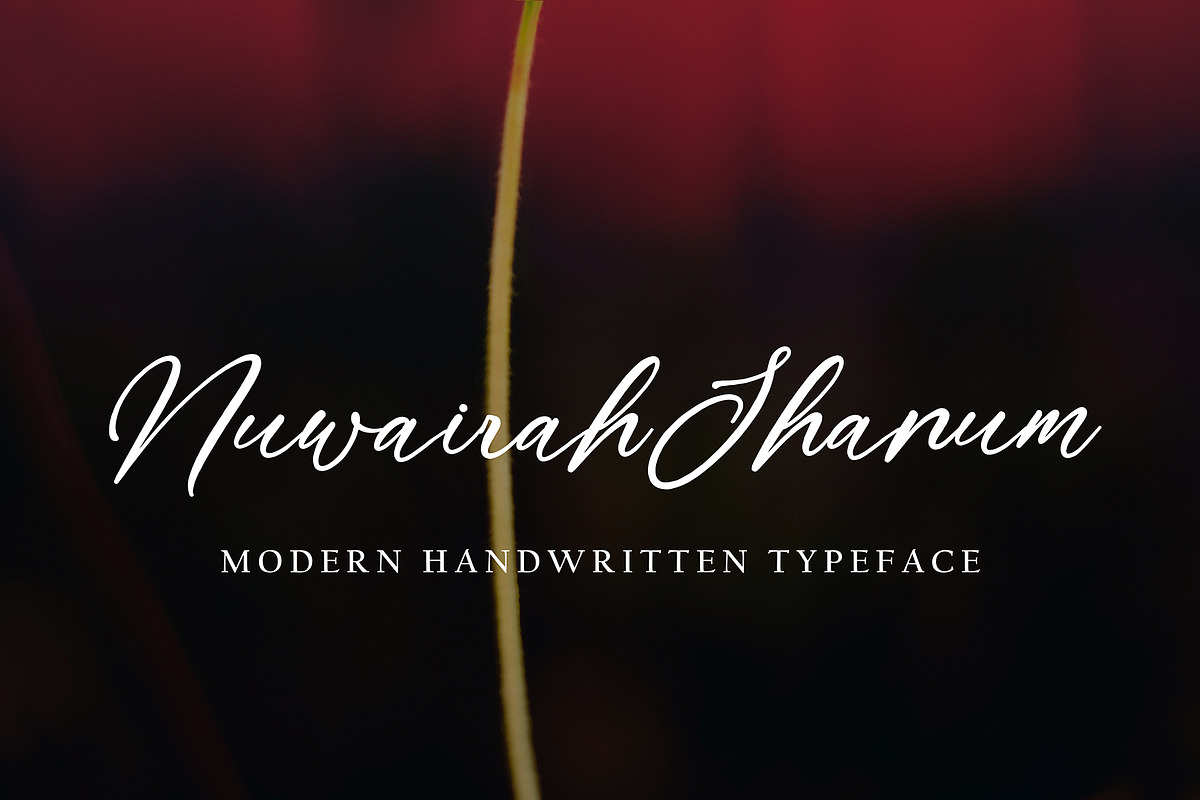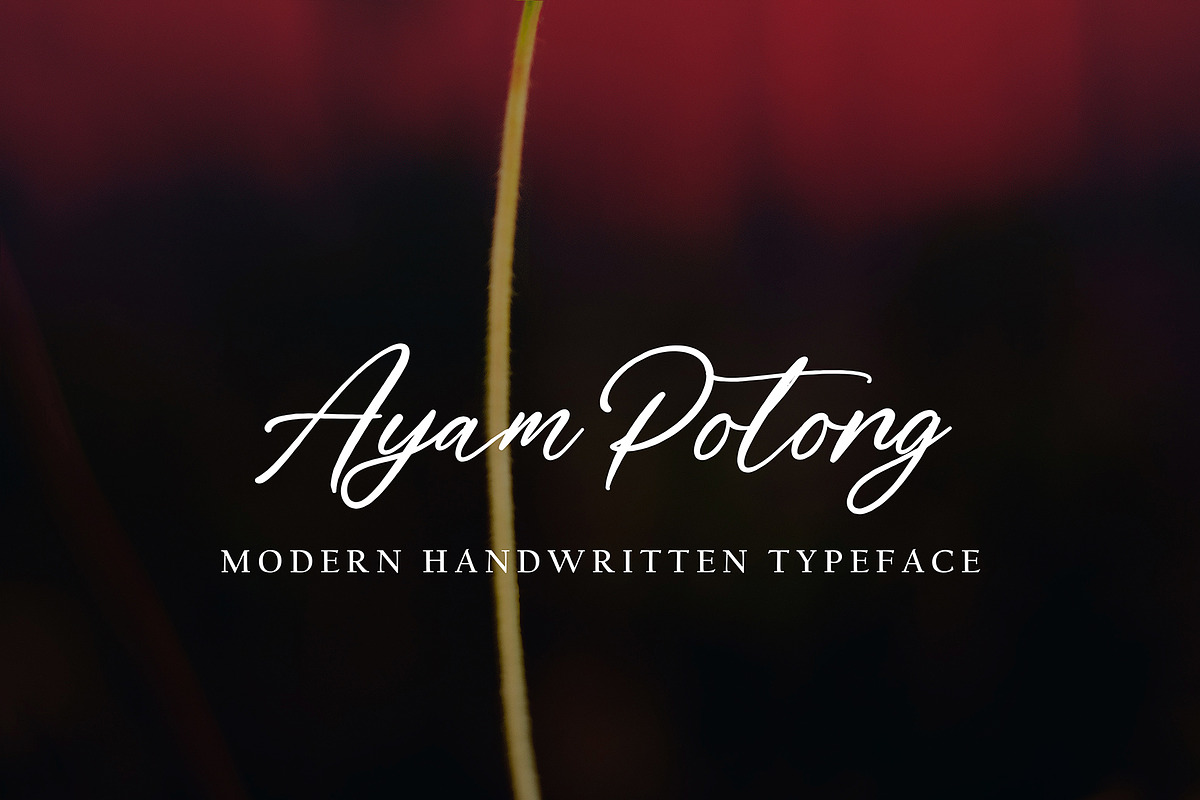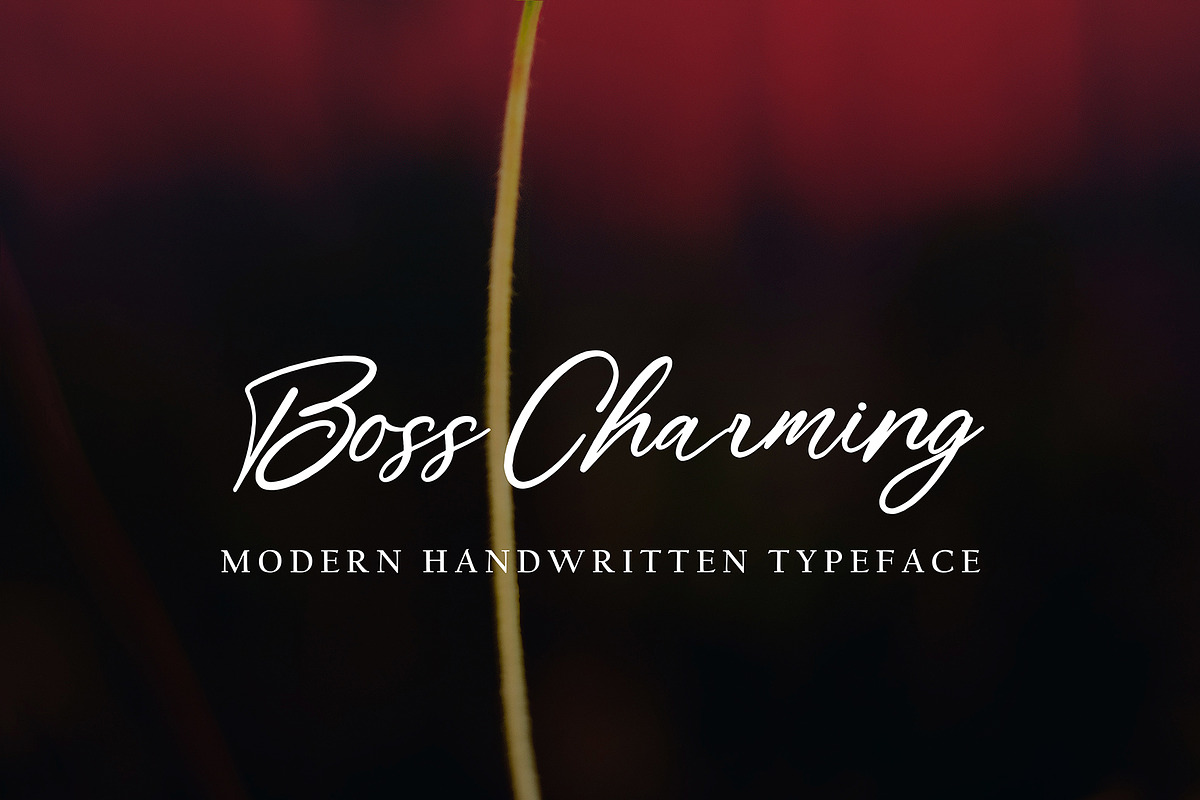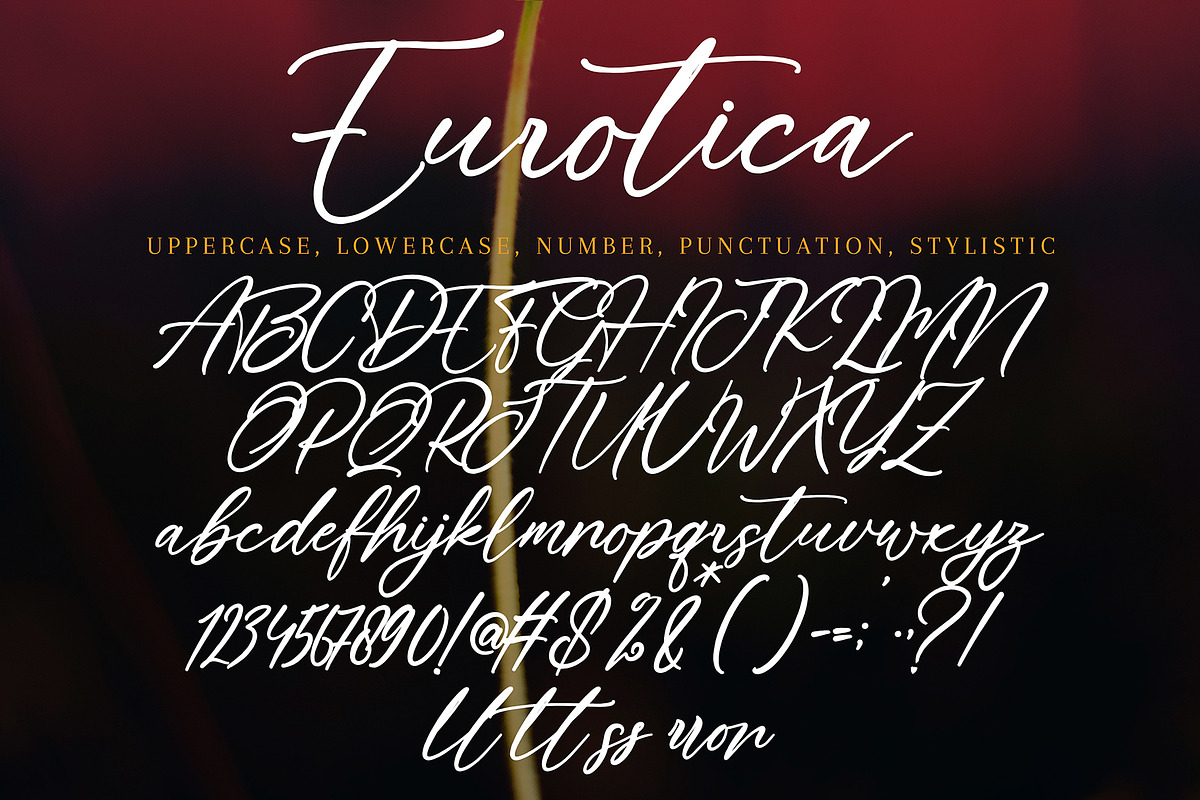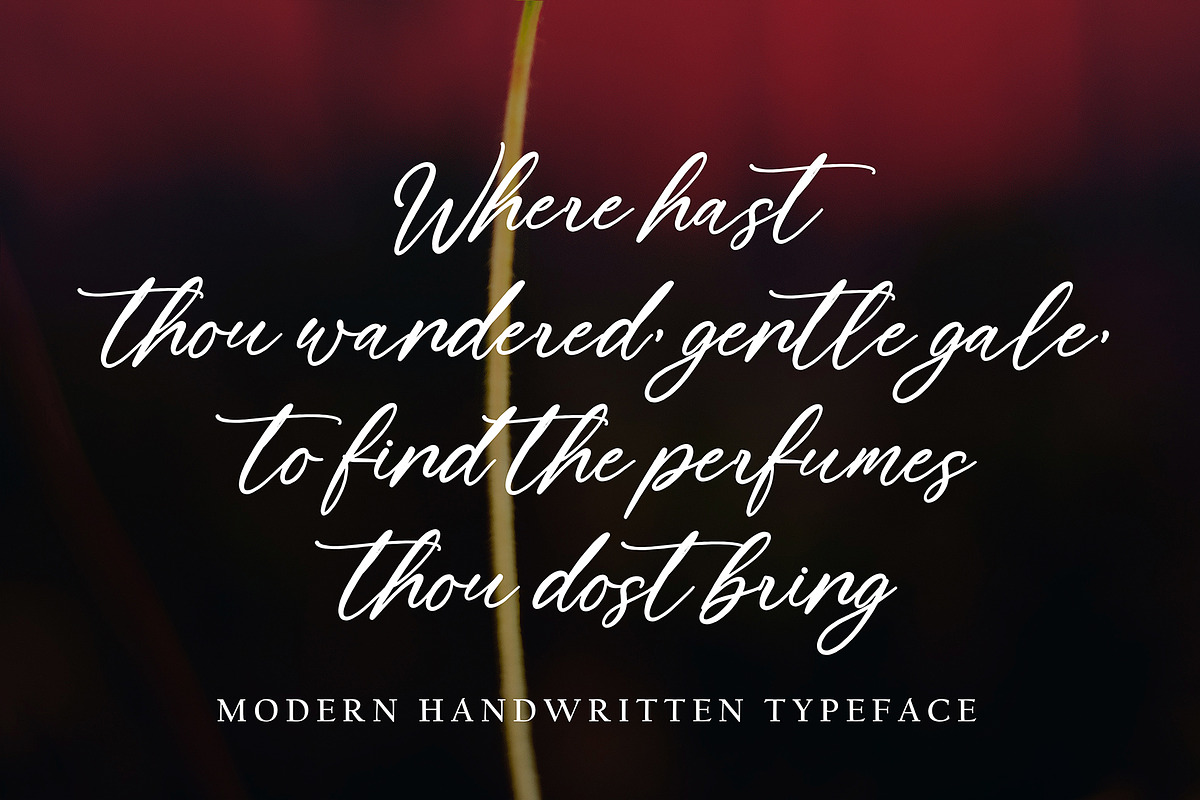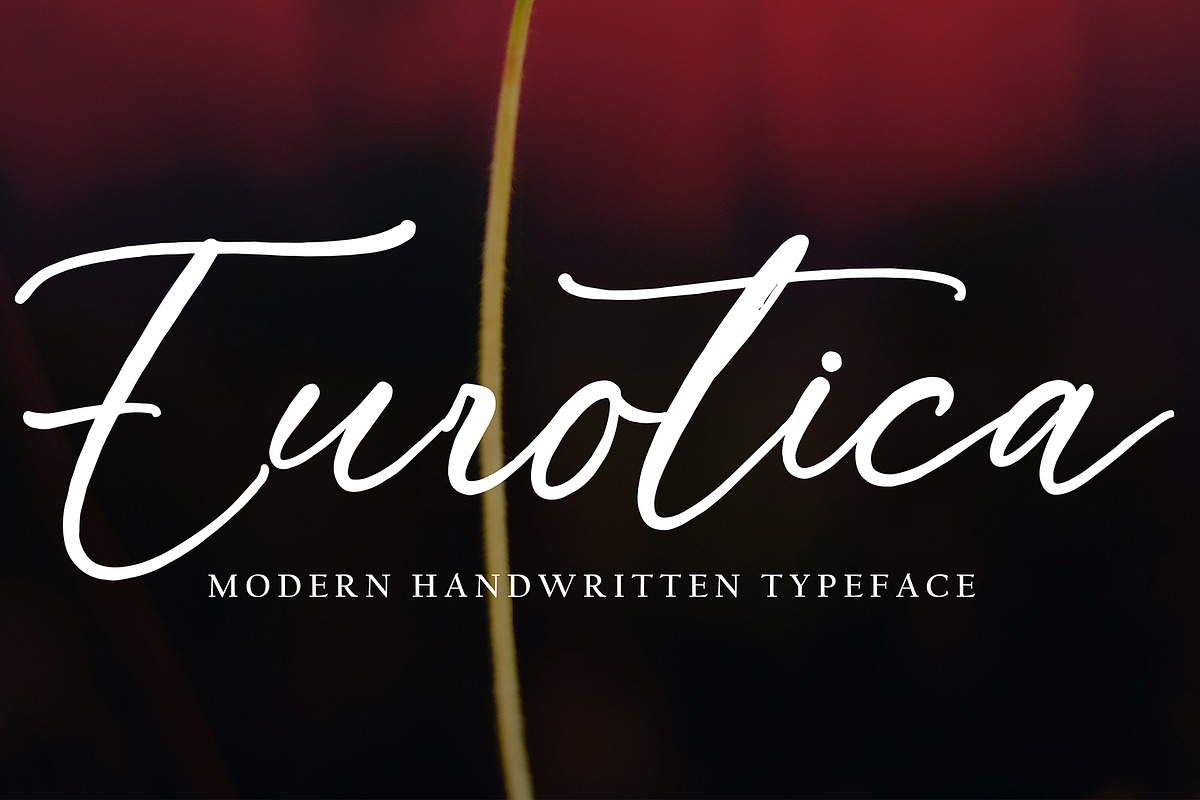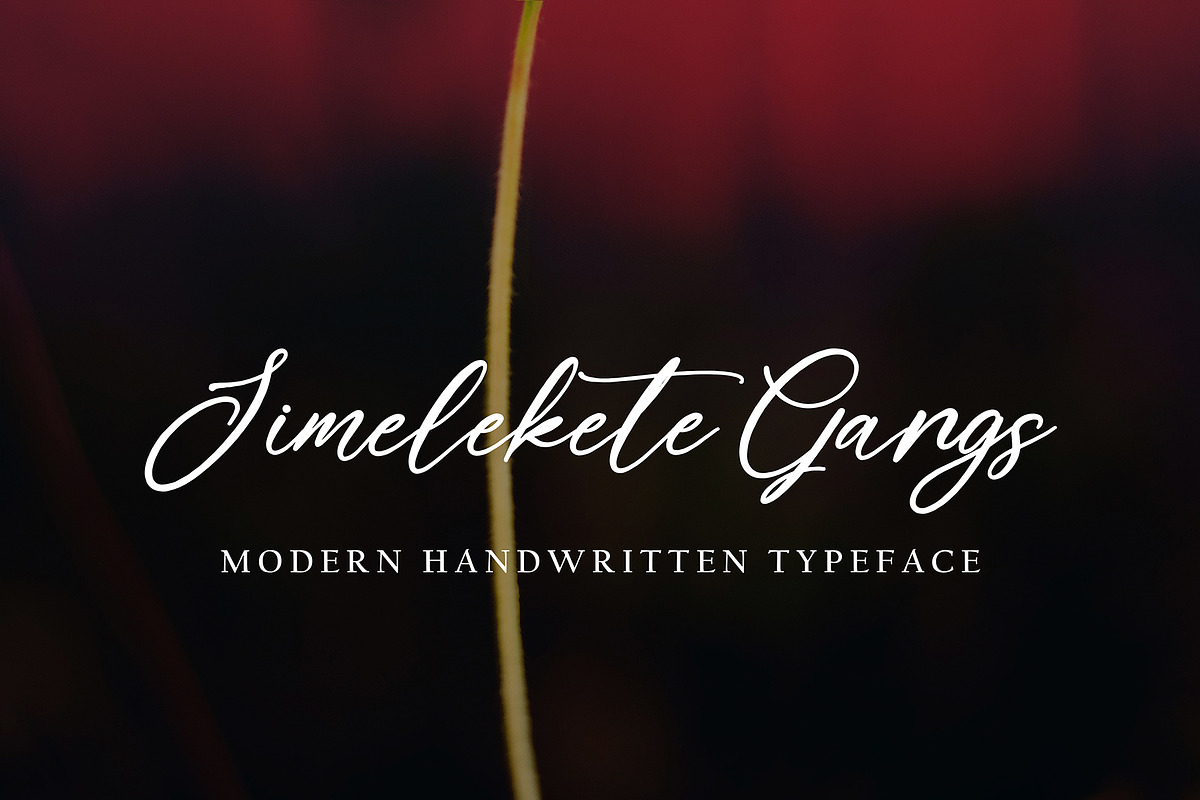
Eurotica
Eurotica with new style, this font will perfect for many different project ex: quotes, logo, blog header, poster, banding, letter, invitation, stationery, etc...